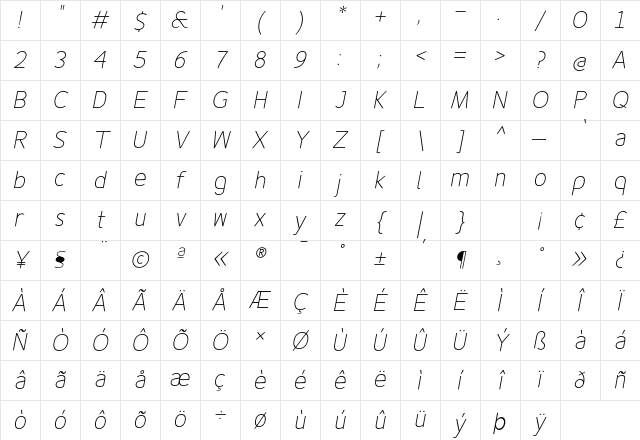
Complete Fineness Pro ExtraLight Italic glyph index. Displaying only characters natively supported by Fineness Pro ExtraLight Italic font.
Fineness Pro ExtraLight is a composed and adaptable typeface that performs quietly and consistently across a wide range of design contexts. The slanted form adds forward momentum and visual energy. Its slender proportions lend an understated elegance to any composition.
Pro Tip: Use Fineness Pro ExtraLight for emphasis, pull quotes, and subheadings where its slanted energy can add rhythm to the layout.